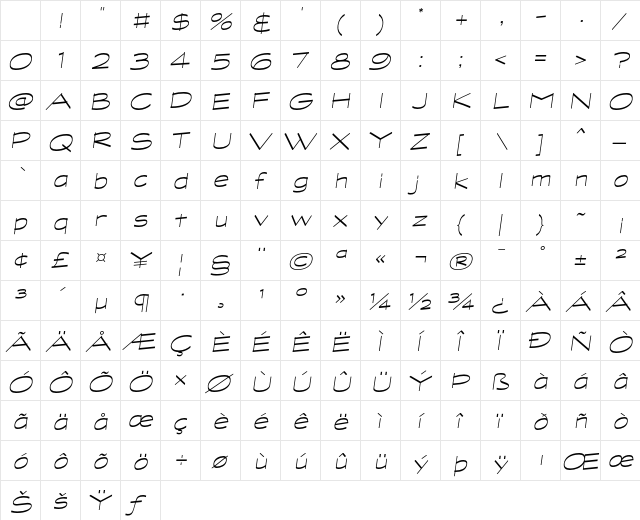
Complete GraphiteLightExtended Oblique glyph index. Displaying only characters natively supported by GraphiteLightExtended Oblique font.
GraphiteLightExtended is a composed and adaptable typeface that performs quietly and consistently across a wide range of design contexts. The slanted form adds forward momentum and visual energy. Its slender proportions lend an understated elegance to any composition.